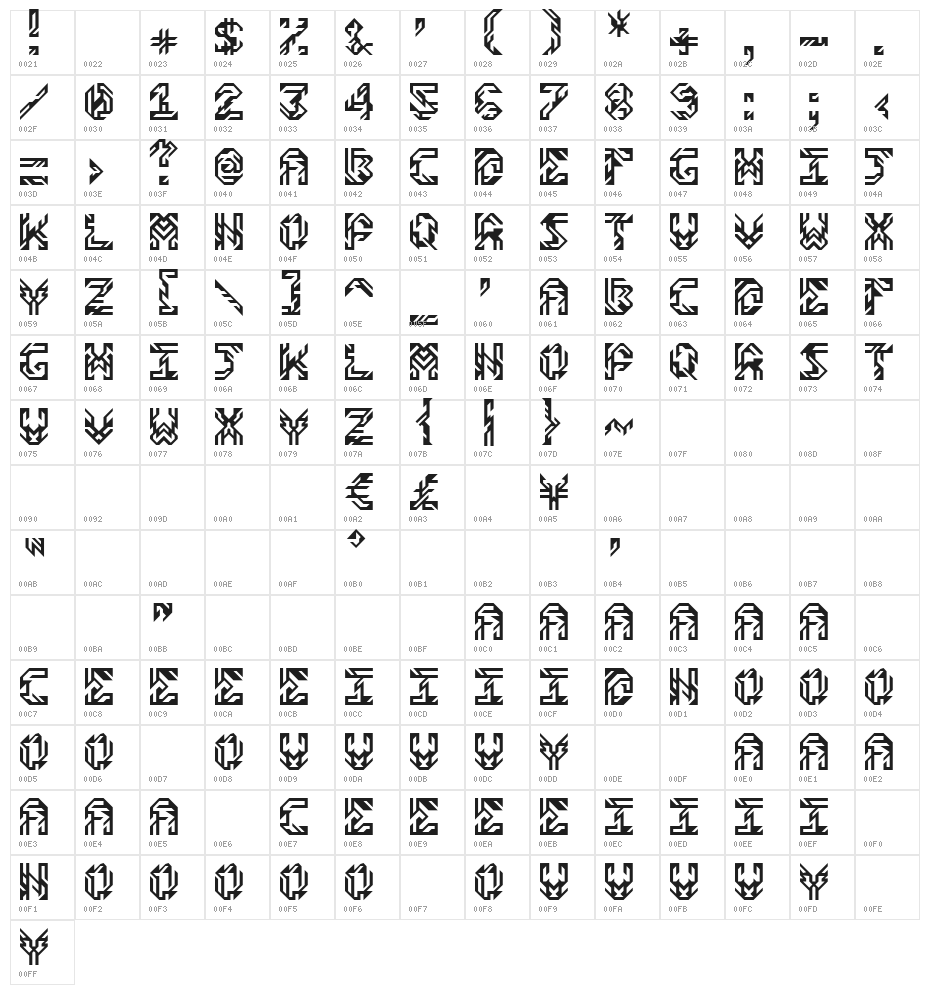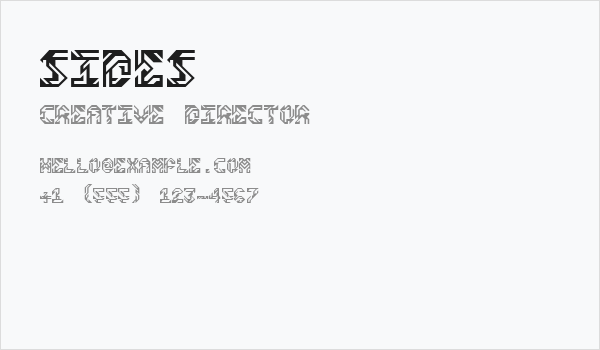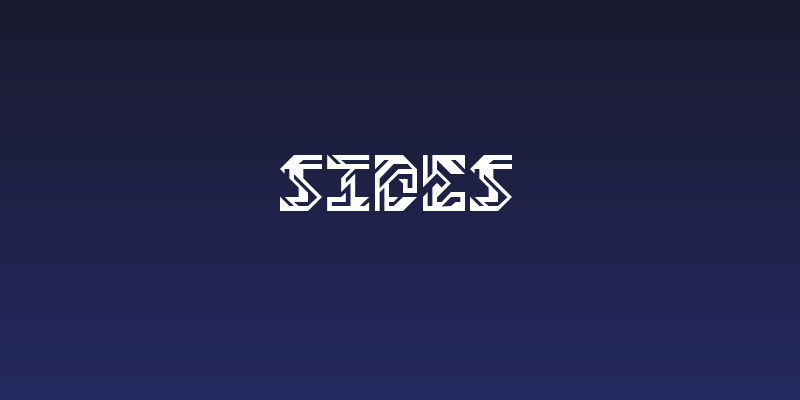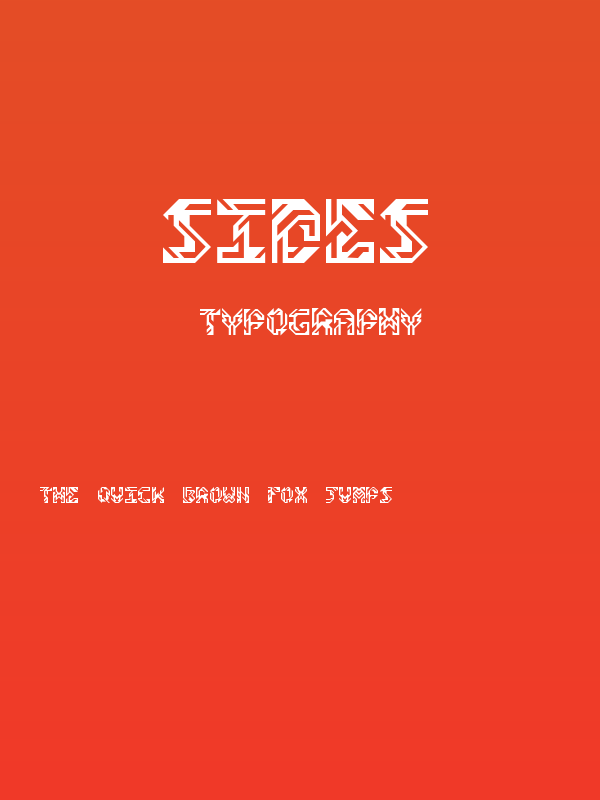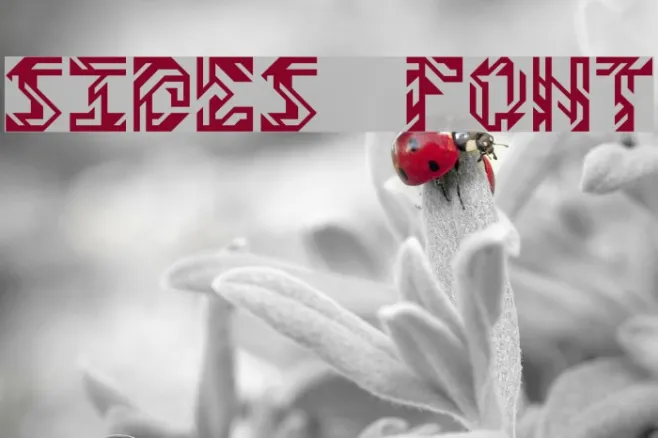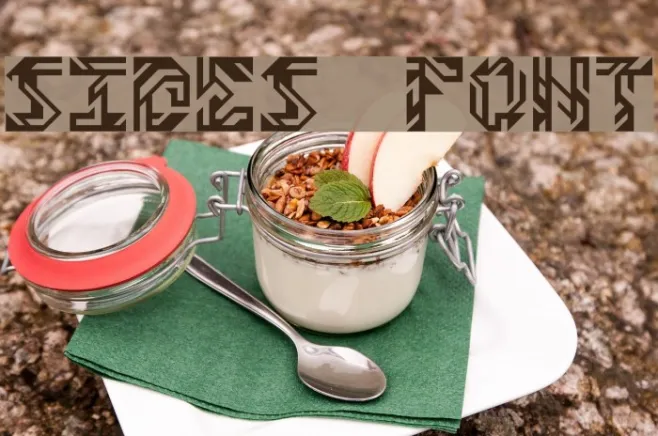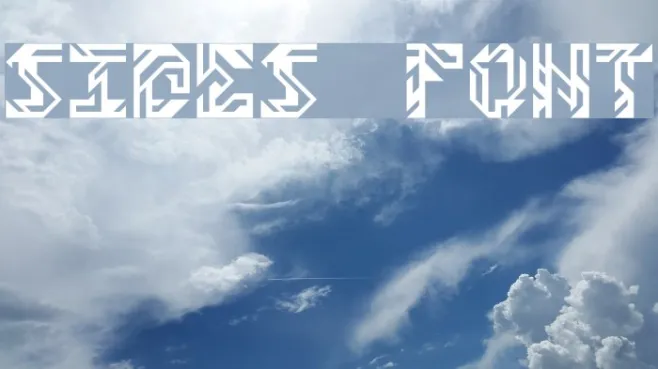
Sides Font
Sides Description
This font features a bold, geometric design with sharp angles and a distinct, edgy appearance. The characters are constructed with a combination of thick and thin lines, creating a high-contrast look that is both modern and eye-catching. The angular shapes give it a futuristic feel, while the consistent use of negative space adds a dynamic element to the overall design. The uppercase and lowercase letters maintain a uniform style, ensuring readability despite the complex structure. Numbers and special characters are crafted with the same attention to detail, making this font versatile for various applications.
| Proposed Projects | Ideal for futuristic branding, tech-related projects, video game titles, and modern poster designs. |